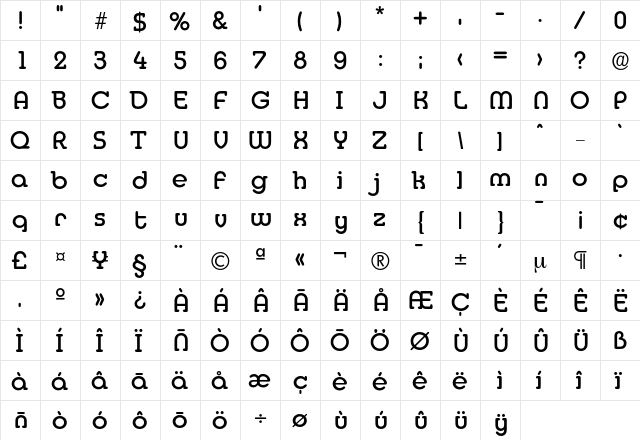
Media-Medium Regular Font Preview
Media-Medium Regular
Media-Medium Regular Font Details
Design Context for Media-Medium Typeface
Media-Medium is a composed and adaptable typeface that performs quietly and consistently across a wide range of design contexts.